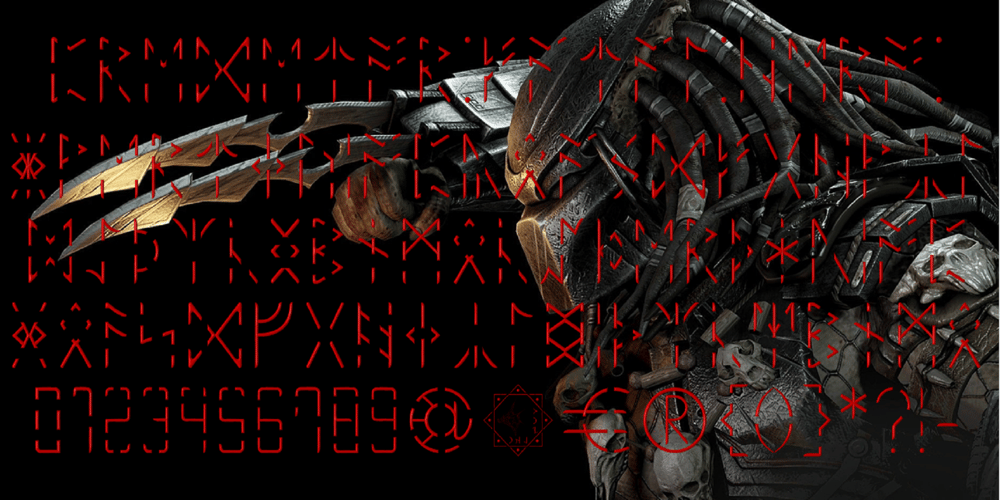
Ongunkan Anglo Saxon Futhark Predator Font Family was designed by Osman Nuri ALKAN and published by Runic World Tamgacı. Ongunkan Anglo Saxon Futhark Predator contains 1 styles and family package options. Anglo Saxon Futhark Runic adapted form of that beautiful impressive alien script from the Fantastic Predator movie. It looks great with the impressive red color.